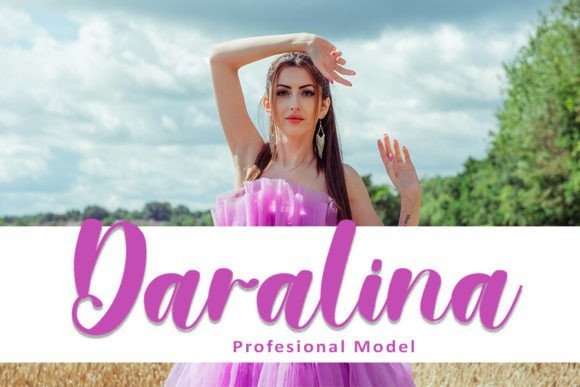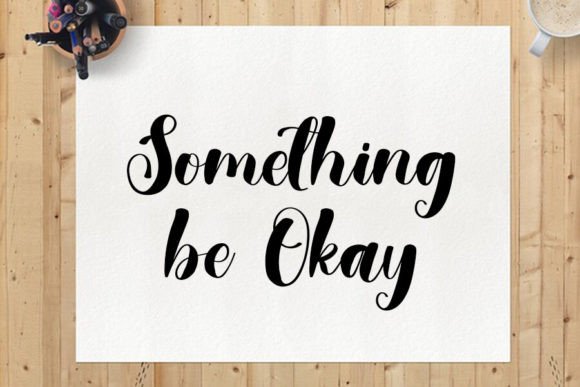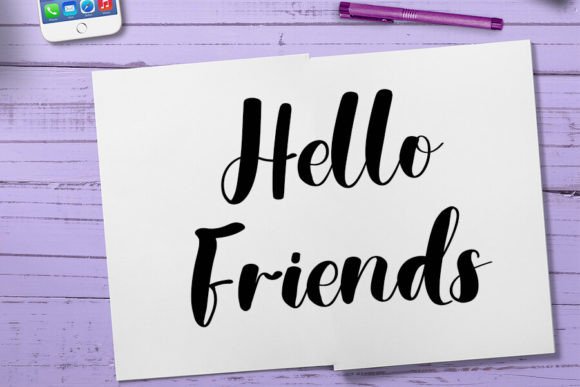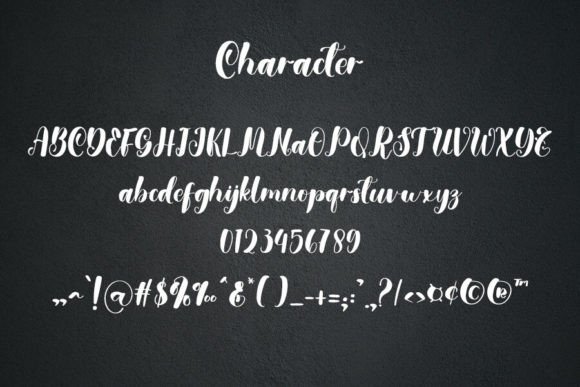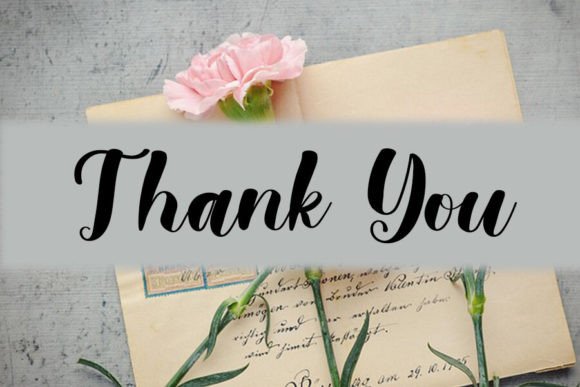
Introducing Beauty Barbie Font: Elevate Your Designs with Timeless Elegance
In the world of typography, few fonts manage to capture the essence of both modern style and classic elegance. Beauty Barbie Font is one such exceptional typeface that brings together the best of both worlds. This stylish handwritten font is inspired by timeless classic calligraphy, offering a contemporary atmosphere with impeccable form. Whether you’re a designer, crafty DIY enthusiast, or a business looking to brand your products uniquely, Beauty Barbie Font is set to enhance the beauty of your projects.
The Inspiration Behind Beauty Barbie Font
Beauty Barbie Font draws its inspiration from traditional calligraphy, yet it infuses it with a modern twist. The result is a balanced and varied typeface that feels both nostalgic and refreshingly new. The font’s design pays homage to the elegance of classic calligraphy while adapting to the needs of modern design. This blend of old and new makes Beauty Barbie Font versatile and suitable for a wide range of applications.
Key Features of Beauty Barbie Font
- Stylish Handwritten Style: Beauty Barbie Font boasts a beautiful, flowing script that mimics the fluidity of handwritten calligraphy. Its elegant strokes and curves make it perfect for projects that require a personal touch.
- Contemporary Atmosphere: Despite its classic roots, Beauty Barbie Font feels distinctly modern. Its clean lines and balanced proportions ensure it fits right in with today’s design trends.
- Impeccable Form: The font’s design focuses on readability and aesthetic appeal. Each letterform is crafted with care, ensuring that the text is not only beautiful but also easy to read.
- Balanced and Varied: Beauty Barbie Font offers a range of variations, making it versatile for different uses. Whether you’re designing a logo, a greeting card, or a website, this font adapts seamlessly.
Uses of Beauty Barbie Font
The versatility of Beauty Barbie Font makes it suitable for a multitude of projects. Here are some popular applications:
- Branding and Logos: Create a memorable brand identity with a logo that stands out. Beauty Barbie Font’s unique style can help your brand appear more approachable and sophisticated.
- Stationery and Invitations: Add a touch of elegance to your wedding invitations, thank you cards, or business stationery. The font’s classic feel makes it perfect for formal and semi-formal events.
- Digital Content: Enhance your website, blog, or social media graphics with a font that captures attention. Beauty Barbie Font can elevate your digital content, making it more engaging for your audience.
- Crafting and DIY Projects: If you’re into scrapbooking, journaling, or other crafty projects, Beauty Barbie Font can add a professional and stylish touch to your work.
Why Choose Beauty Barbie Font?
In a sea of fonts, Beauty Barbie stands out for several reasons:
- Uniqueness: It offers a fresh take on traditional calligraphy, making your designs stand out.
- Versatility: Its adaptability means you can use it across various projects, from digital to print.
- Elegance: The font adds a touch of sophistication to any design, making it suitable for high-end brands and personal projects alike.
Beauty Barbie Font is more than just a typeface; it’s a design statement. With its roots in classic calligraphy and a strong contemporary vibe, it offers the best of both worlds. Whether you’re a professional designer or someone who loves dabbling in DIY projects, Beauty Barbie Font can elevate your work, adding a layer of elegance and sophistication that’s hard to achieve with standard fonts. So, if you’re looking to add a timeless yet modern touch to your designs, Beauty Barbie Font is an excellent choice.